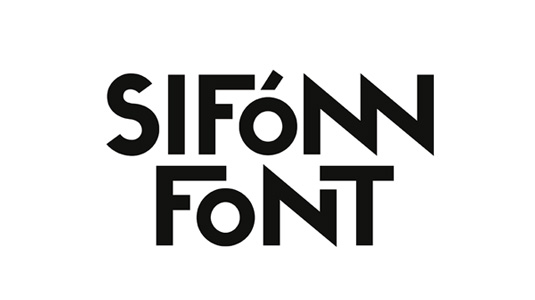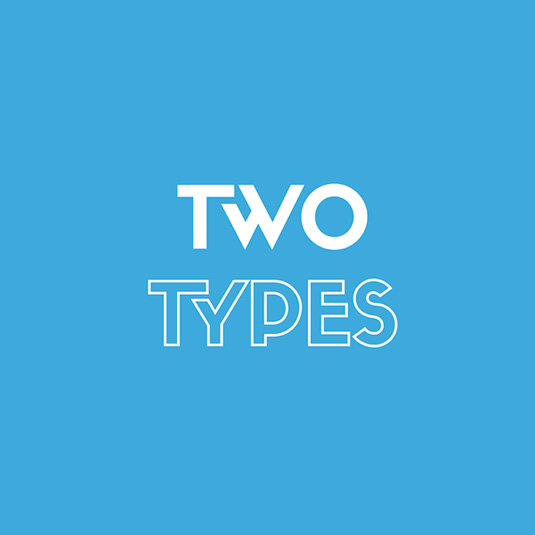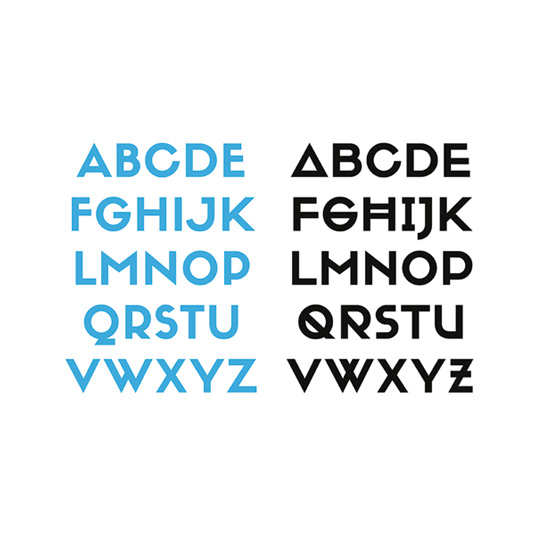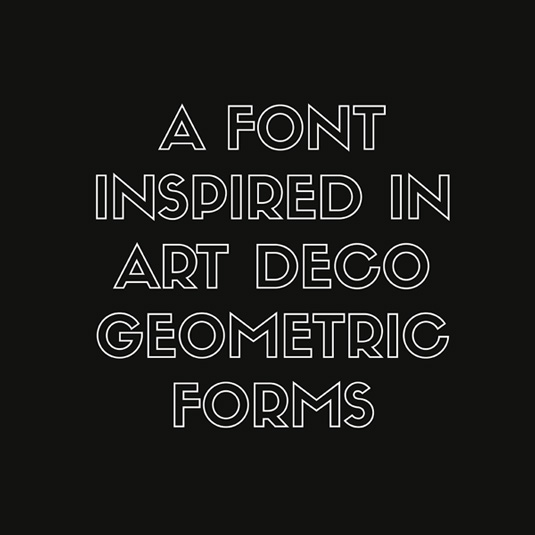
Font of the day: Sifonn
Sifonn by Rafa Goicoechea
Barcelona-based graphic and type designer Rafa Goicoechea is the man behind today's font of choice. "Sifonn is a display typeface consisting in three weights," he explains. "There's a Pro version with more than 900 glyphs, featuring a large set of ligatures, titling alternates, fractions, catch words and multiple opentype features."
Sifonn also comes with a Basic and Basic Outline version with the standard char set (360 glyphs), both of which are available as a free download.